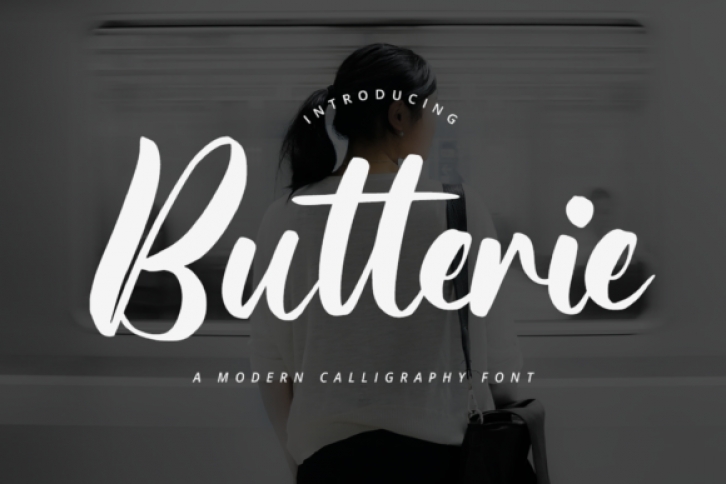
Butterie is a lovely script font, featuring a sweet flow. It looks beautiful on a variety of designs requiring a personalized style, such as wedding invitations, thank you cards, weddings, greeting cards, logos and so on.